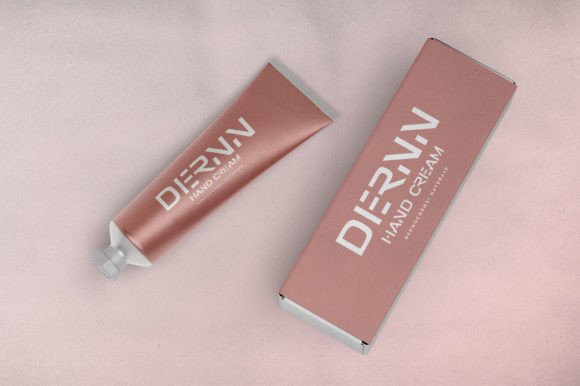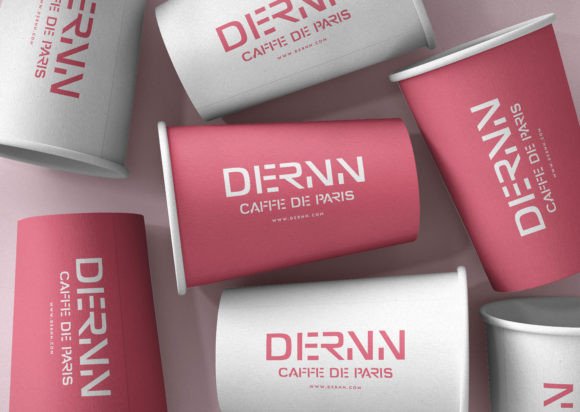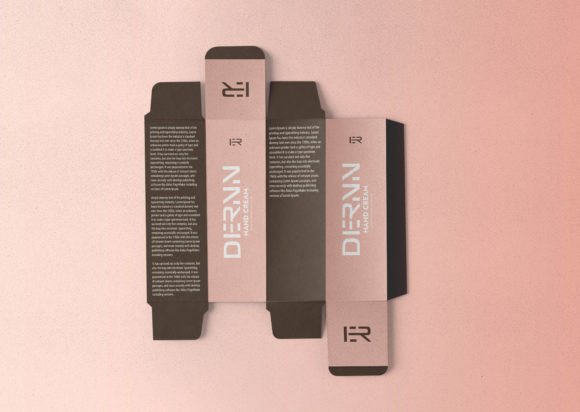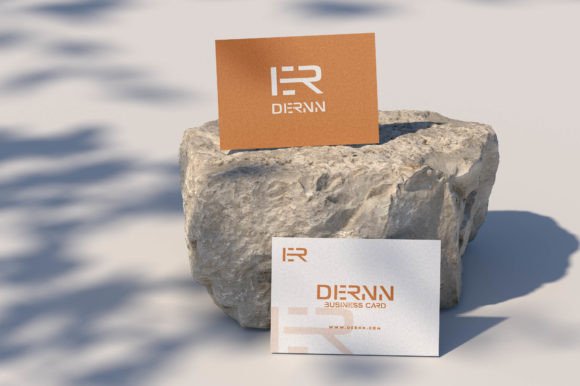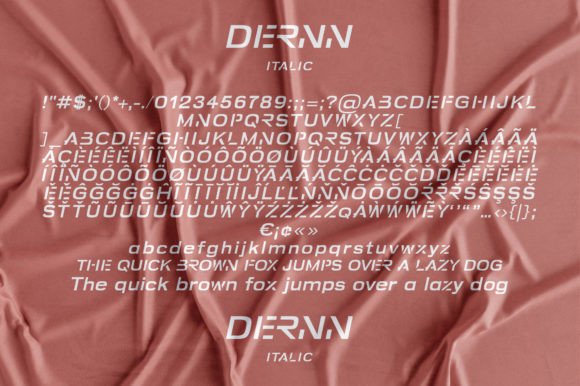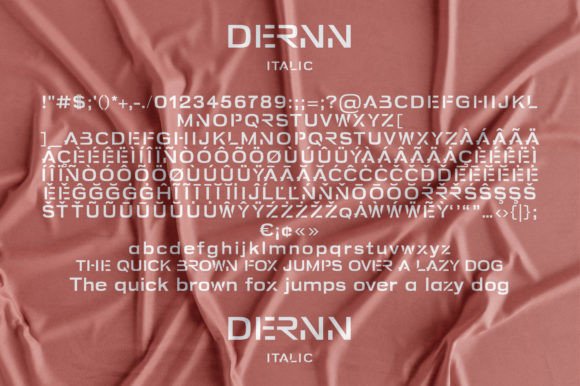
Dernn Font: The Modern, Minimalistic Sans Serif Typeface for Bold Designs
In the world of typography, fonts play a crucial role in conveying the tone and personality of a design. For designers and crafters looking for a modern, simple, and clean sans serif typeface, Dernn Font is an excellent choice. This revolutionary font is designed to add a touch of sophistication and minimalism to various design projects, making it perfect for game titles, film posters, packaging, cosmetics, perfumes, and more.
What Makes Dernn Font Stand Out?
Dernn Font is a modern, simple, clean, and minimalistic sans serif typeface that boasts a unique glyph construction. Its revolutionary design makes it an ideal choice for designers who want to add a bold and animated touch to their work while maintaining a minimalistic effect. The font’s clean lines, simple shapes, and elegant curves create a visually appealing aesthetic that is both modern and timeless.
Key Features of Dernn Font
- Modern and Minimalistic Design: Dernn Font features a sleek and contemporary design that is perfect for designers who want to create bold and eye-catching designs.
- Simple and Clean Glyphs: The font’s glyphs are simple, clean, and easy to read, making it perfect for use in a variety of design projects.
- Versatile and Adaptable: Dernn Font can be used for a wide range of design projects, including game titles, film posters, packaging, cosmetics, perfumes, and more.
- Easy to Read and Understand: The font’s clear and concise design makes it easy to read and understand, even at small sizes.
Use Cases for Dernn Font
Dernn Font is a versatile typeface that can be used in a variety of design projects. Here are some examples of use cases where Dernn Font excels:
- Game Titles: Dernn Font is perfect for game titles that require a modern and bold font. Its clean design and simple glyphs make it easy to read and understand, even at small sizes.
- Film Posters: The font’s elegant curves and simple shapes make it an excellent choice for film posters that require a touch of sophistication and minimalism.
- Packaging Design: Dernn Font can be used for packaging design projects that require a modern and clean font. Its simple design and easy-to-read glyphs make it perfect for product labels and packaging.
- Cosmetics and Perfumes: The font’s elegant and sophisticated design makes it an excellent choice for cosmetics and perfumes branding projects.
Tips for Using Dernn Font Effectively
To get the most out of Dernn Font, here are some tips for using it effectively:
- Pair it with Other Fonts: Dernn Font can be paired with other fonts to create a unique and visually appealing design.
- Use it in Headings and Titles: The font’s bold and modern design makes it perfect for use in headings and titles.
- Experiment with Different Sizes and Colors: Dernn Font can be used at various sizes and colors to create a bold and eye-catching design.
Dernn Font is a modern, simple, clean, and minimalistic sans serif typeface that is perfect for designers and crafters looking for a bold and elegant font. Its revolutionary glyph construction and versatile design make it an excellent choice for a wide range of design projects. With its easy-to-read glyphs, simple design, and elegant curves, Dernn Font is an excellent addition to any design project.
Whether you’re designing a game title, film poster, packaging, or cosmetics branding project, Dernn Font is an excellent choice. Its modern and minimalistic design ensures that your project will stand out from the crowd and leave a lasting impression on your audience.